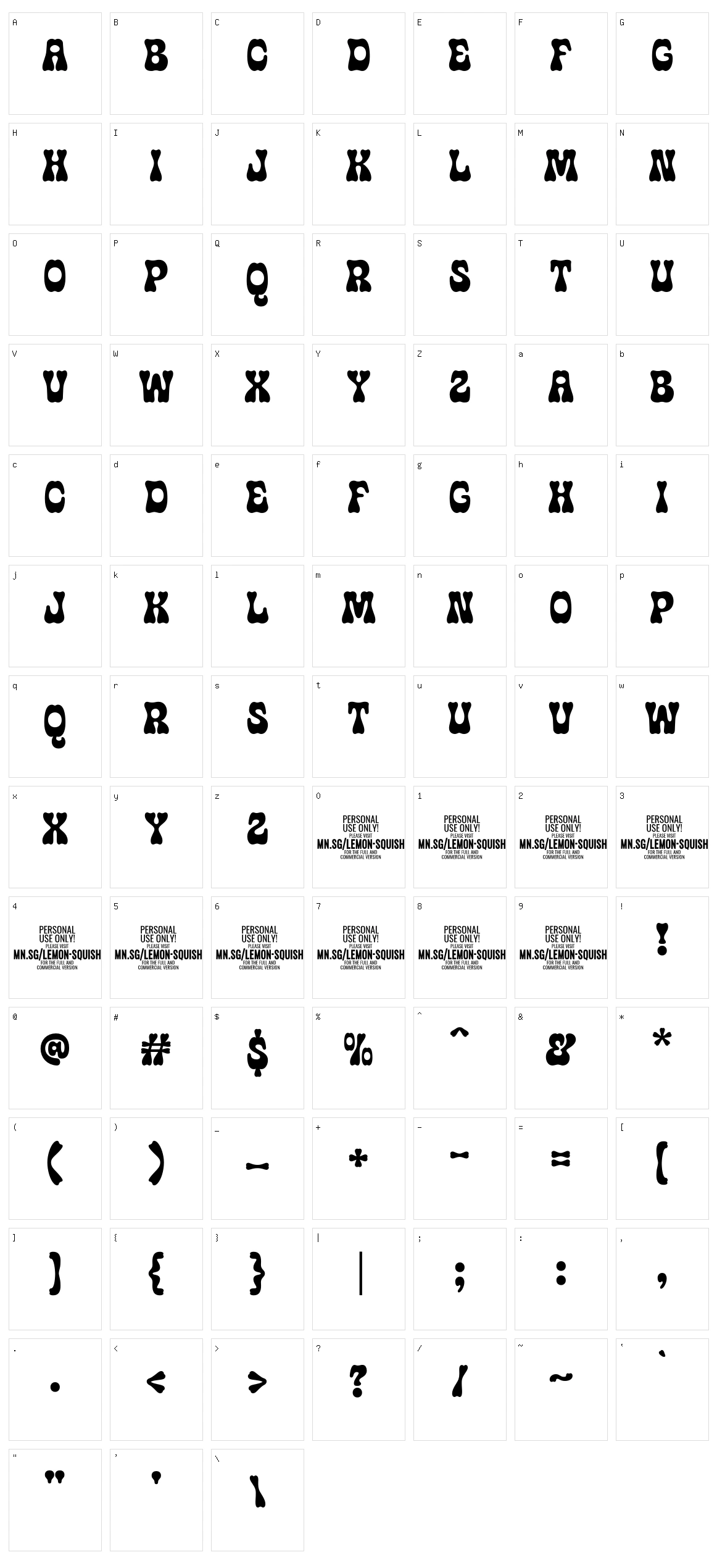
Lemon Squish is a fun and funky sans-serif font that is perfect for adding a touch of humor and whimsy to any design. This font is inspired by the 70s hippie culture and has a retro feel that is reminiscent of comic books and graffiti.
Lemon Squish comes in ten different styles, including Bold, Bold Italic, Light, Light Italic, Regular, and four Outline variations. These various styles provide versatility and allow you to create dynamic and eye-catching designs.
The playful and lighthearted nature of Lemon Squish makes it ideal for anything from branding and logos to social media posts and advertisements. Its fun and quirky design will add a touch of humor and personality to your projects and bring a smile to your audience's face.
The font is built with advanced OpenType functionality and has a guaranteed top-notch quality, containing stylistic and contextual alternates, ligatures and more features; all to give you full control and customizability.
It has extensive lingual support, covering all Latin-based languages, from Northern Europe to South Africa, from America to South-East Asia.
It contains all characters and symbols you'll ever need, including all punctuation and numbers.